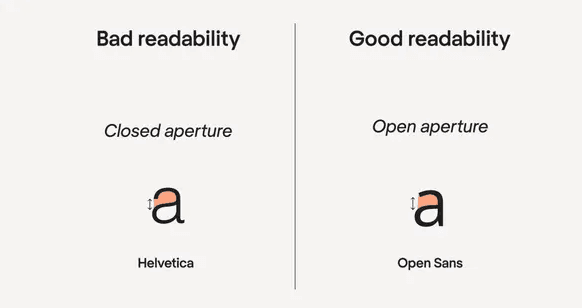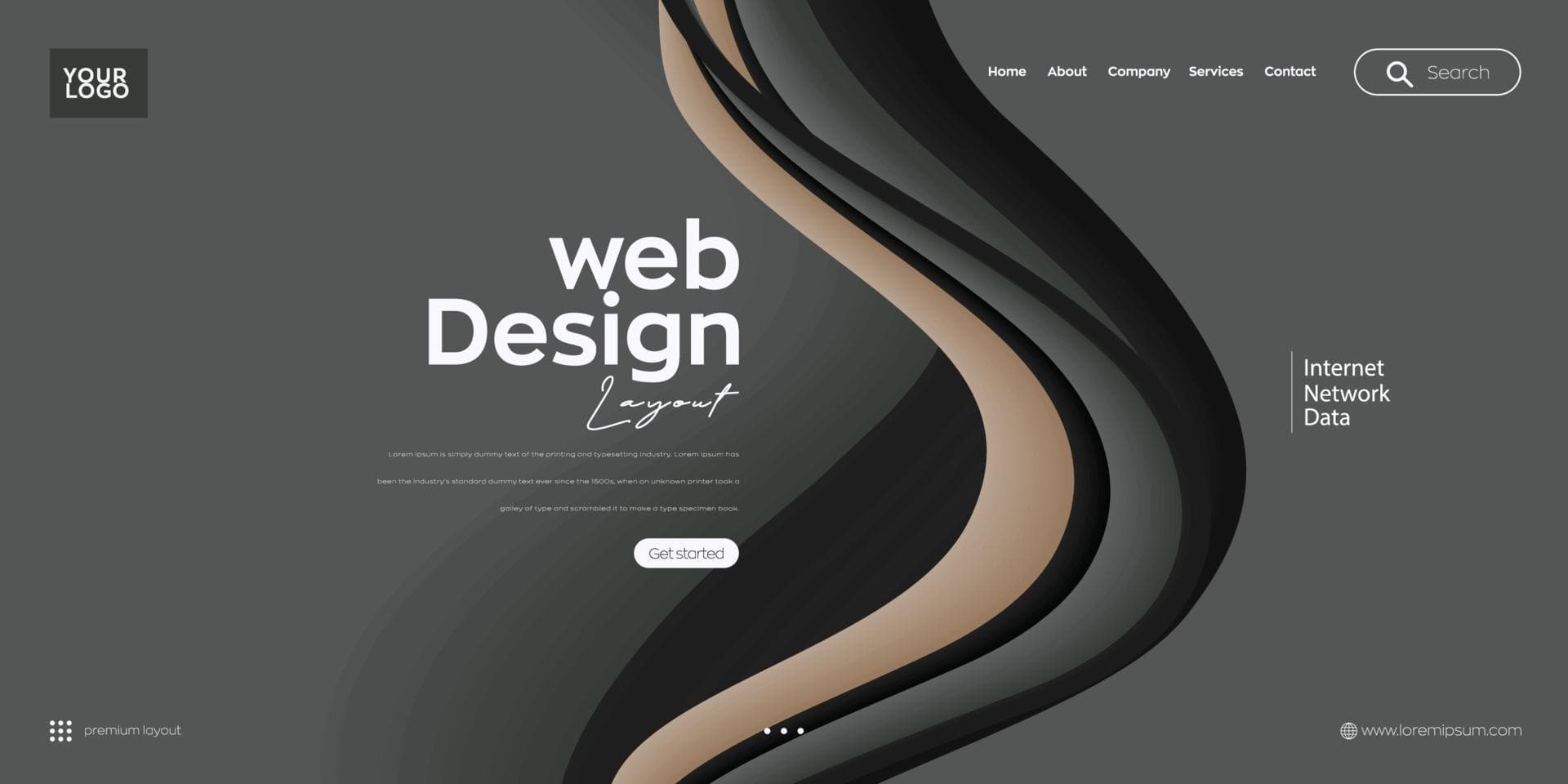
Great Fonts for Websites: What Makes a Font "Good" for the Web?
Discover how to identify great fonts for websites-balancing readability, style, and performance. Learn why good web fonts are crucial for user experience and SEO in modern website development.
Great Fonts for Websites: What Makes a Font "Good" for the Web?
When embarking on website development, typography often emerges as one of the most impactful yet underestimated elements. Picking great fonts goes beyond visual appeal: it also directly influences readability, loading speed, and user engagement. But how can you tell if a typeface counts as a "good web font"? Let's delve into the essential traits that distinguish good fonts for websites, ensuring your online presence resonates with users and aligns with SEO best practices.
Balancing Readability and Style
At the core of a "good" web typeface is its ability to communicate content swiftly and clearly. Visitors usually scan paragraphs rather than read them in full, so easy to read fonts become indispensable. Simple letterforms, consistent spacing, and legible weights help reduce eye strain-particularly on small mobile screens or high-resolution monitors. This principle applies regardless of whether you're opting for a minimal sans-serif or experimenting with awesome lettering fonts for a unique brand identity.
Making Your Text Pop
• Size Matters: Body text generally should not dip below 16px. For certain audiences or designs, going 18px or above can help.
• Contrast Counts: Combine light text against a dark background (or vice versa) to amplify clarity.
• Hierarchy and Structure: Use bold or semi-bold weights for headings, while keeping body text regular to guide the reader's eye smoothly.
Loading Performance and SEO Impact
Performance stands at the forefront in modern web design. Each additional font file can weigh down your site's load time. Since search engines factor in page speed, heavy fonts could indirectly affect your rankings. Minimizing layout shifts, employing efficient hosting or CDNs, and only loading the necessary styles (e.g., regular, bold) can offer a balanced approach between style and speed.
• Font Display Settings: Consider font-display: swap or fallback to keep text visible if the font file hasn't fully loaded.
• Subsetting: Serve only relevant characters or alphabets to reduce file size, a useful trick for sites targeting specific languages.
These tactics ensure that digital fonts remain an asset rather than a drag on performance, helping you maintain user engagement and bolster your SEO positioning.
Cross-Device Compatibility and Accessibility
Smartphones, tablets, laptops-visitors now use an eclectic range of devices to reach your site. A "best fonts web" approach anticipates these variables, ensuring consistency across different screen sizes. By choosing well-tested electronic font libraries (like Google Fonts or Adobe Fonts) and verifying performance on popular browsers, you can avoid awkward renderings or mismatched designs.
Accessibility First
• High Contrast Ratios: This helps people with visual impairments read your text more effortlessly.
• Sufficient Spacing: Generous line-height and paragraph spacing keep content approachable, even for older users or those with reading difficulties.
• Responsive Scaling: Some modern fonts automatically scale or adjust letter spacing to improve on-screen readability, an important feature for dynamic layouts.
Aligning with Your Brand and Content
While legibility and performance are primary concerns, your chosen font should also align with your brand's persona and the type of content you publish. If your business aims for a friendly, approachable vibe, a rounded sans-serif might work wonders. For a sophisticated, editorial look, a high-contrast serif could make sense. If your brand skews creative, you might add subtle accents using awesome lettering fonts in your hero banners, while still relying on simpler text for paragraphs.
Leveraging Decorative Fonts Strategically
Decorative or script fonts can add personality, but they're best reserved for short-form elements like logos, headings, or call-to-action banners. Extended blocks of stylized text can disrupt user flow. To handle this gracefully, pair decorative typefaces with a reliable, easily scanned main text font. This approach lets you maintain a consistent look and feel without compromising user comprehension or page speed.
Good Web Fonts vs. Good Fonts for Websites
You might stumble upon the terms "good web fonts" and "good fonts for websites." While closely related, "good web fonts" prioritize optimal rendering across digital contexts, often emphasizing technical and performance aspects. "Good fonts for websites," on the other hand, can include specialized or branding-driven typefaces that serve both functional and aesthetic goals. By bridging these ideas, you'll create a text environment that is simultaneously easy to navigate and uniquely branded.